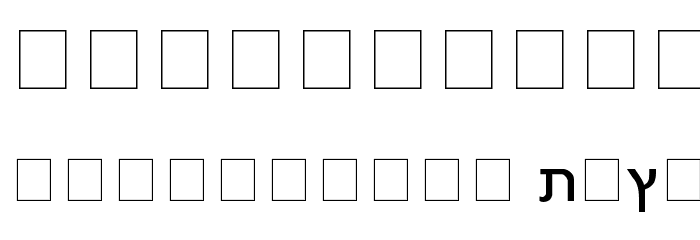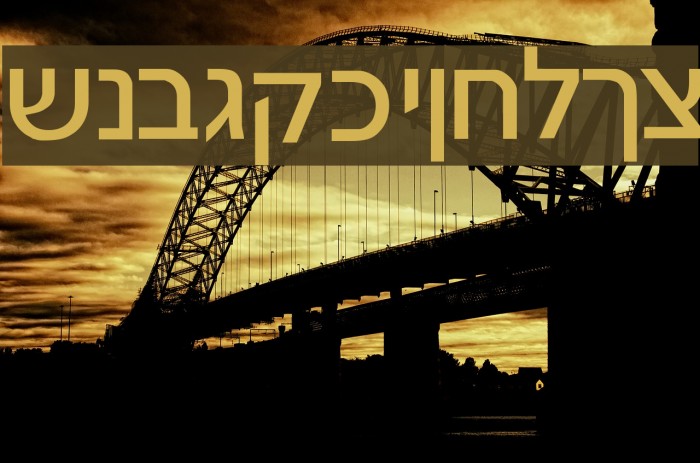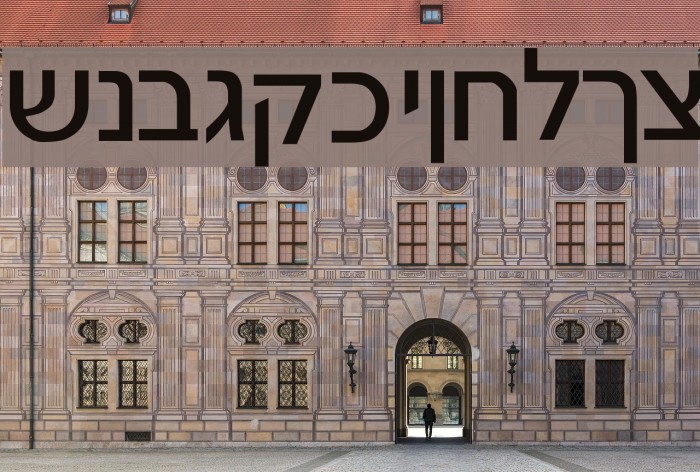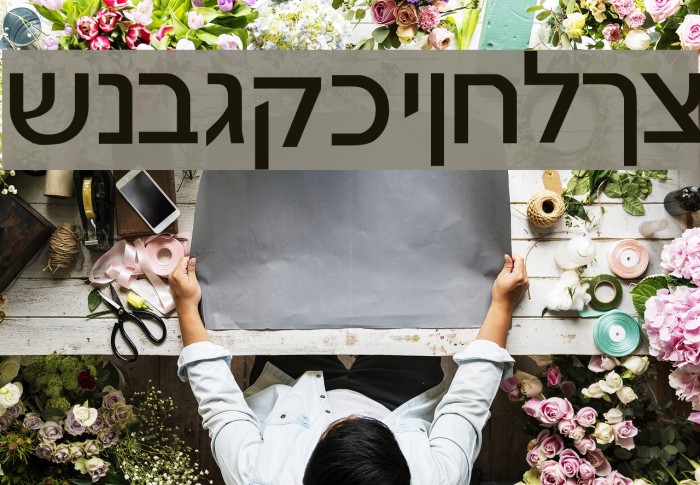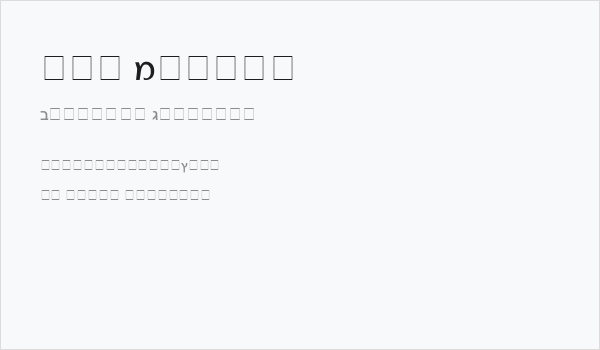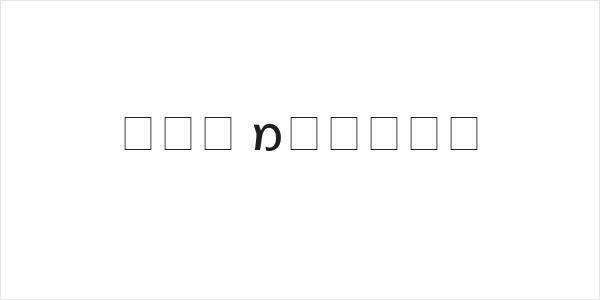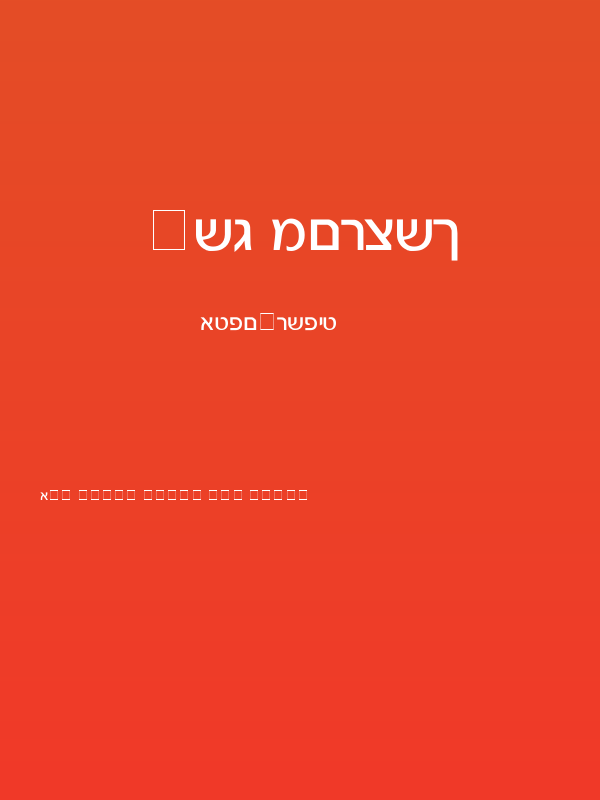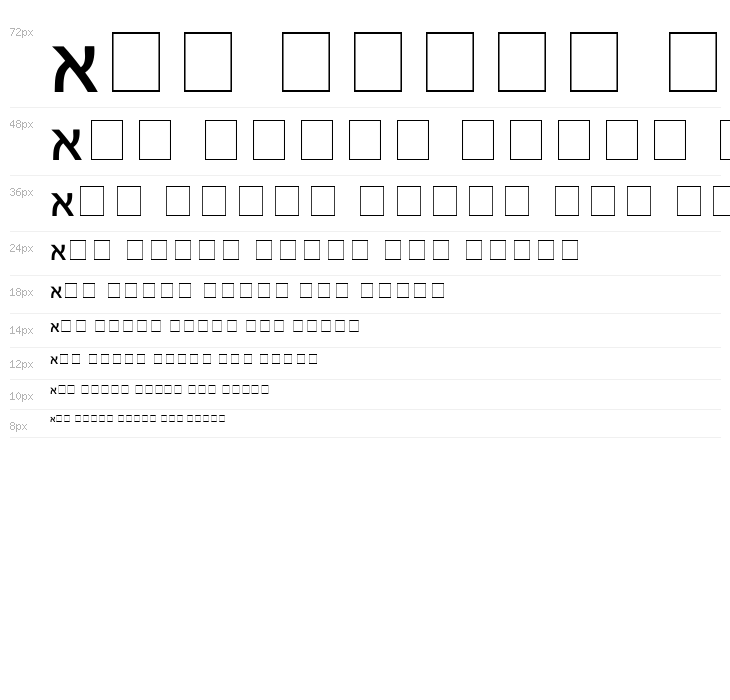
Gad Normal Font
Gad Normal Description
This font features a clean and modern design with a focus on readability and simplicity. The characters are well-proportioned and exhibit a balanced weight, making them suitable for a variety of applications. The strokes are consistent, with a medium contrast that adds a subtle elegance to the overall appearance. The spacing between characters is normal, ensuring clarity and ease of reading. This font's straightforward style makes it versatile for both digital and print media.